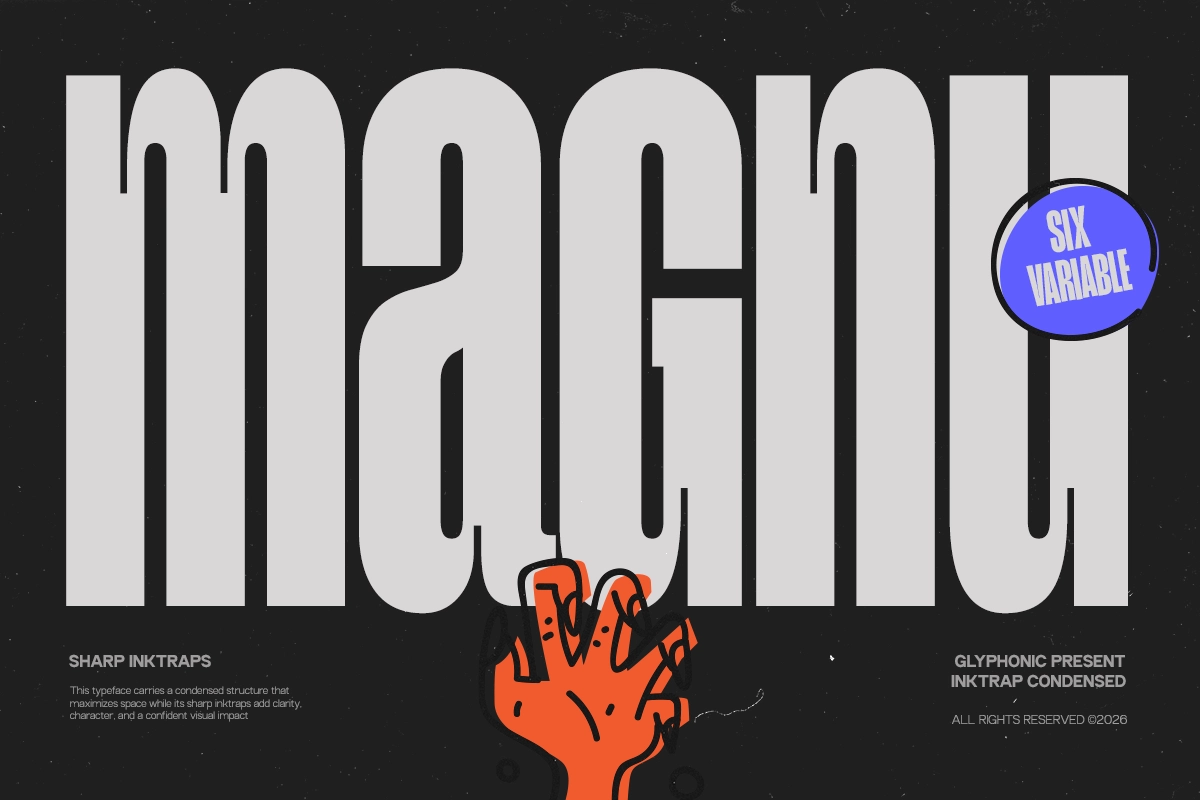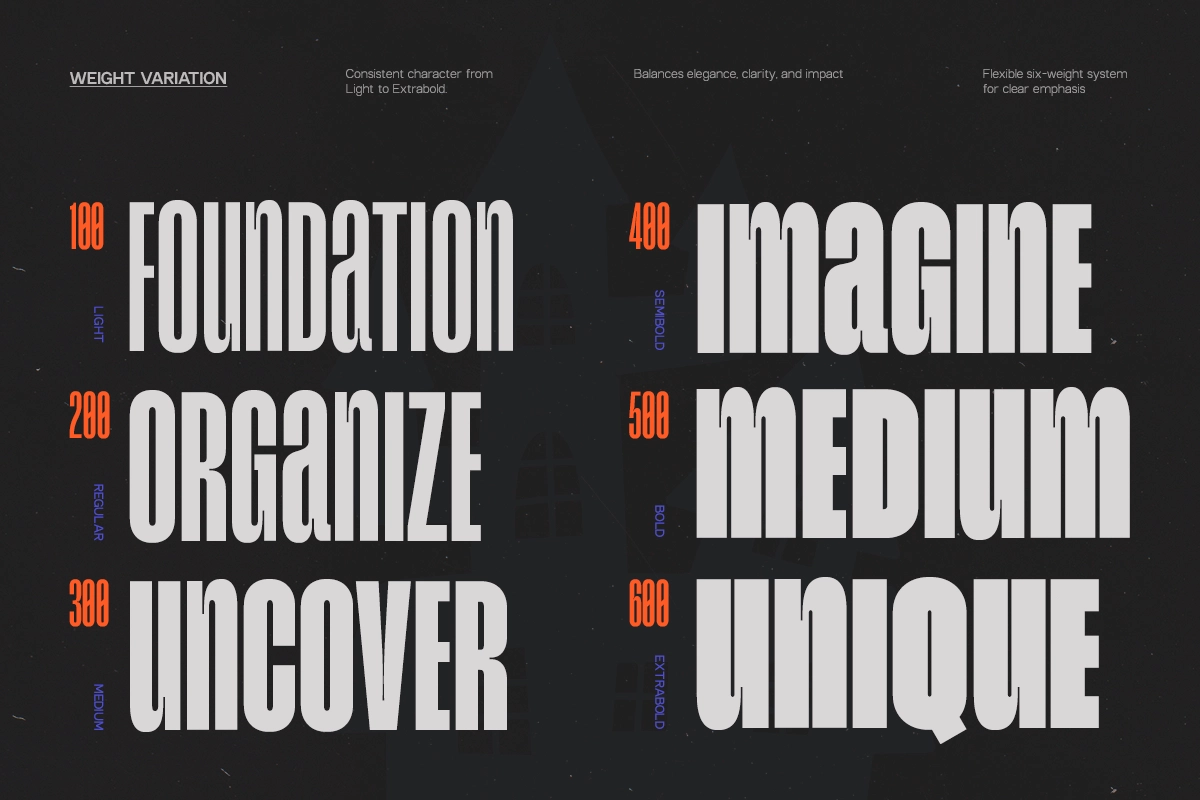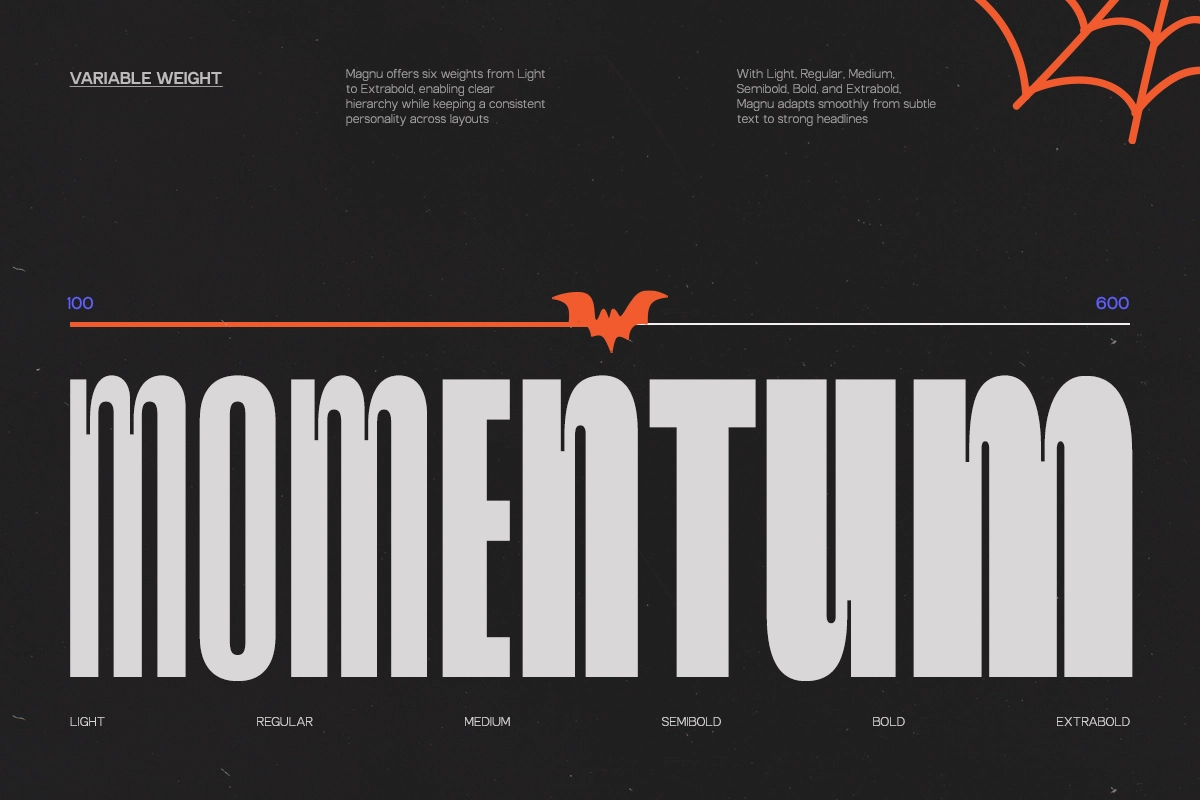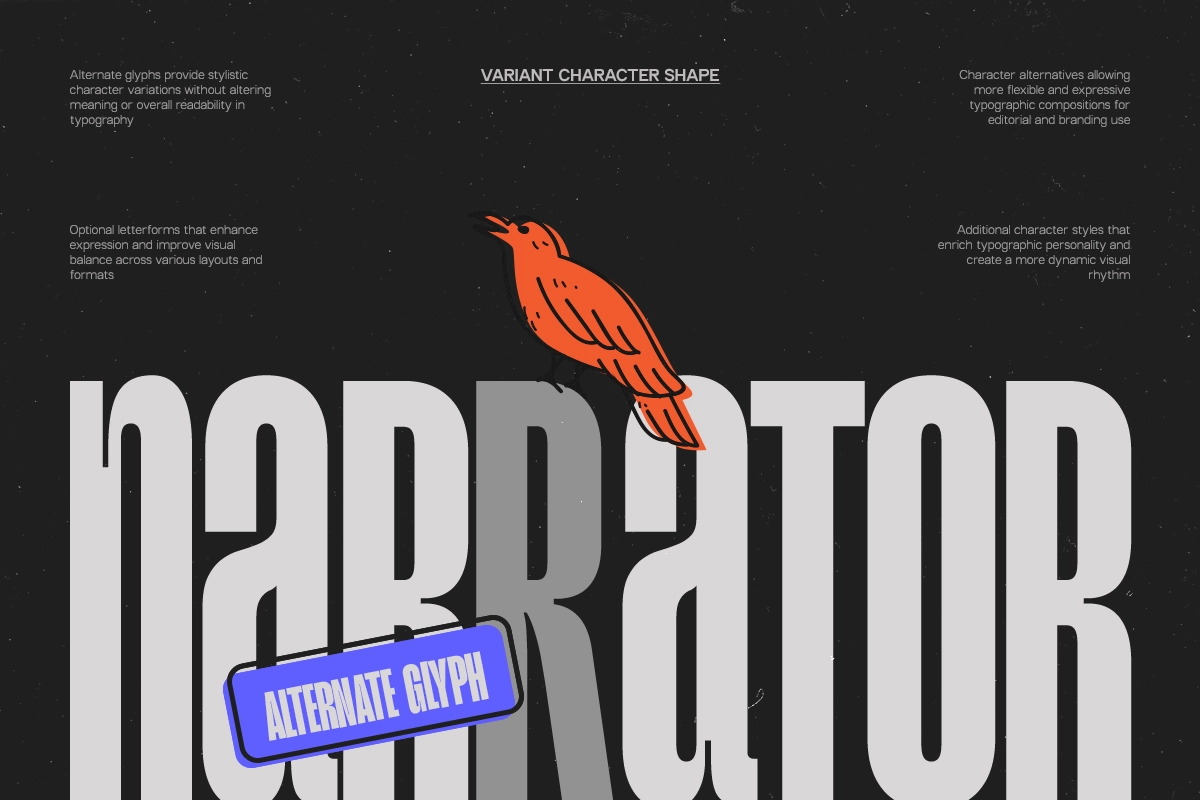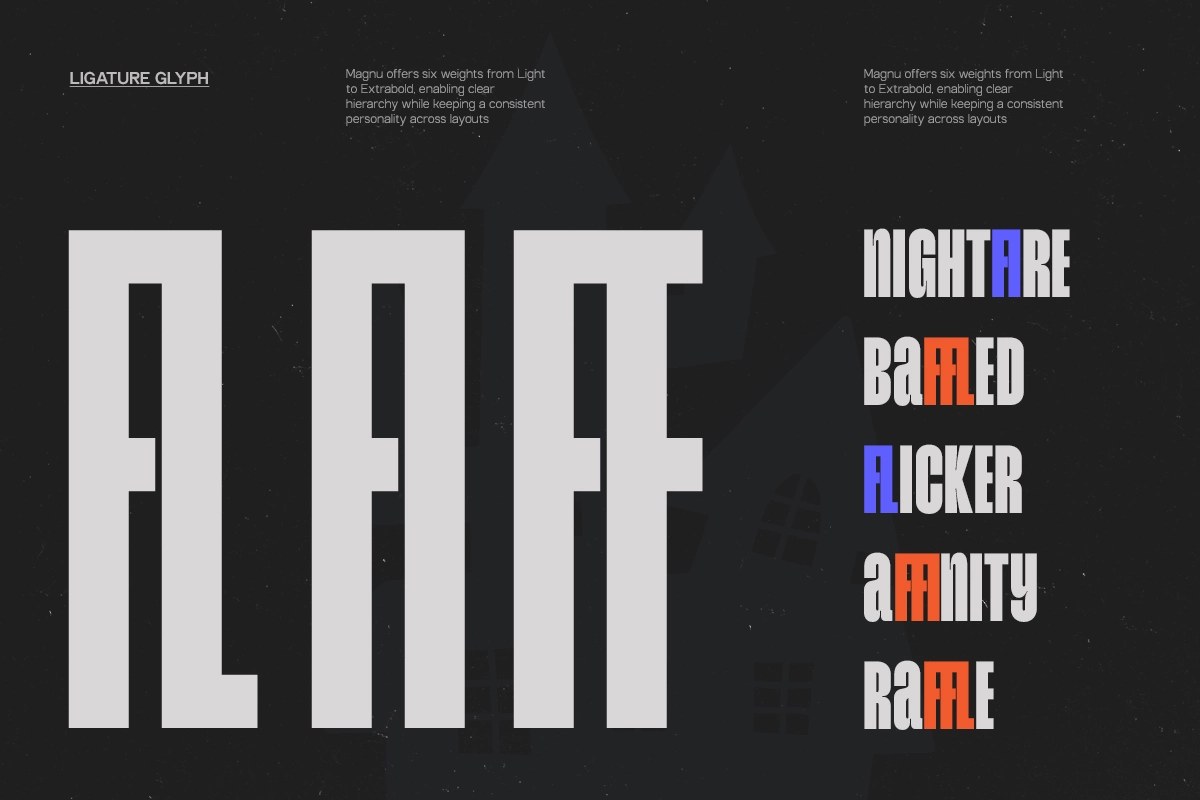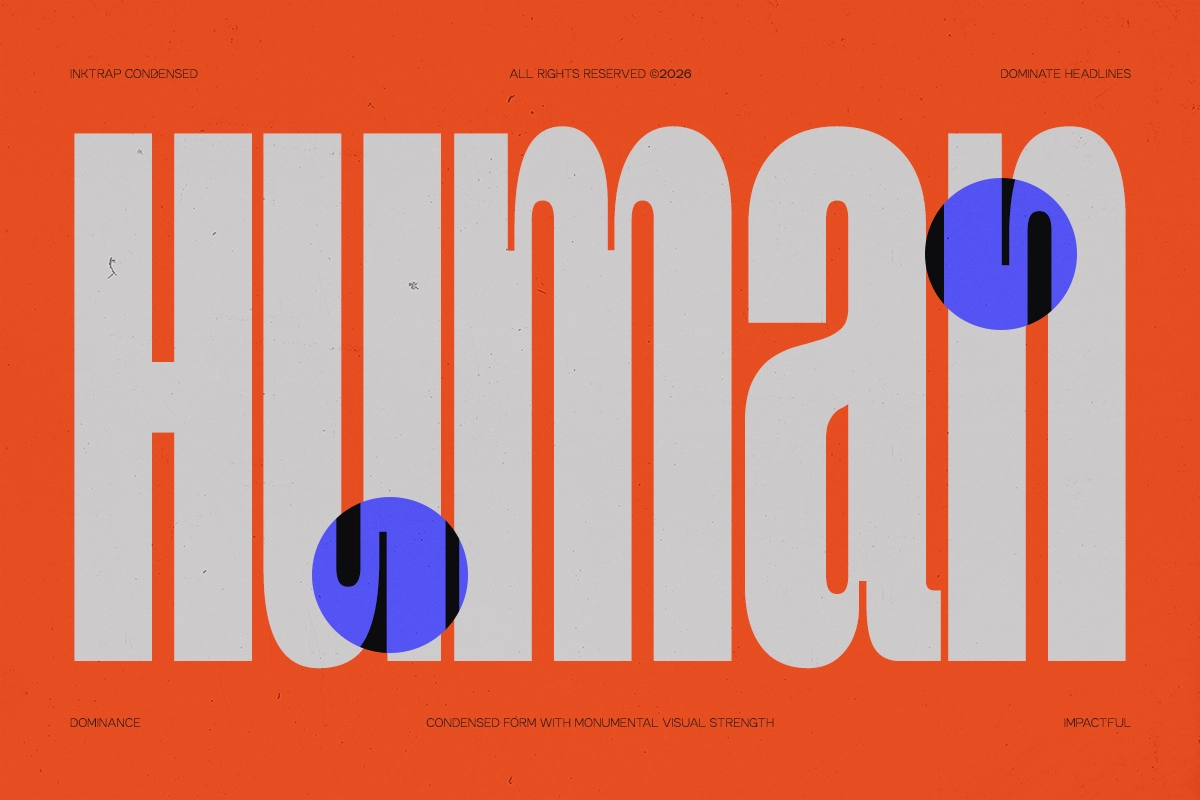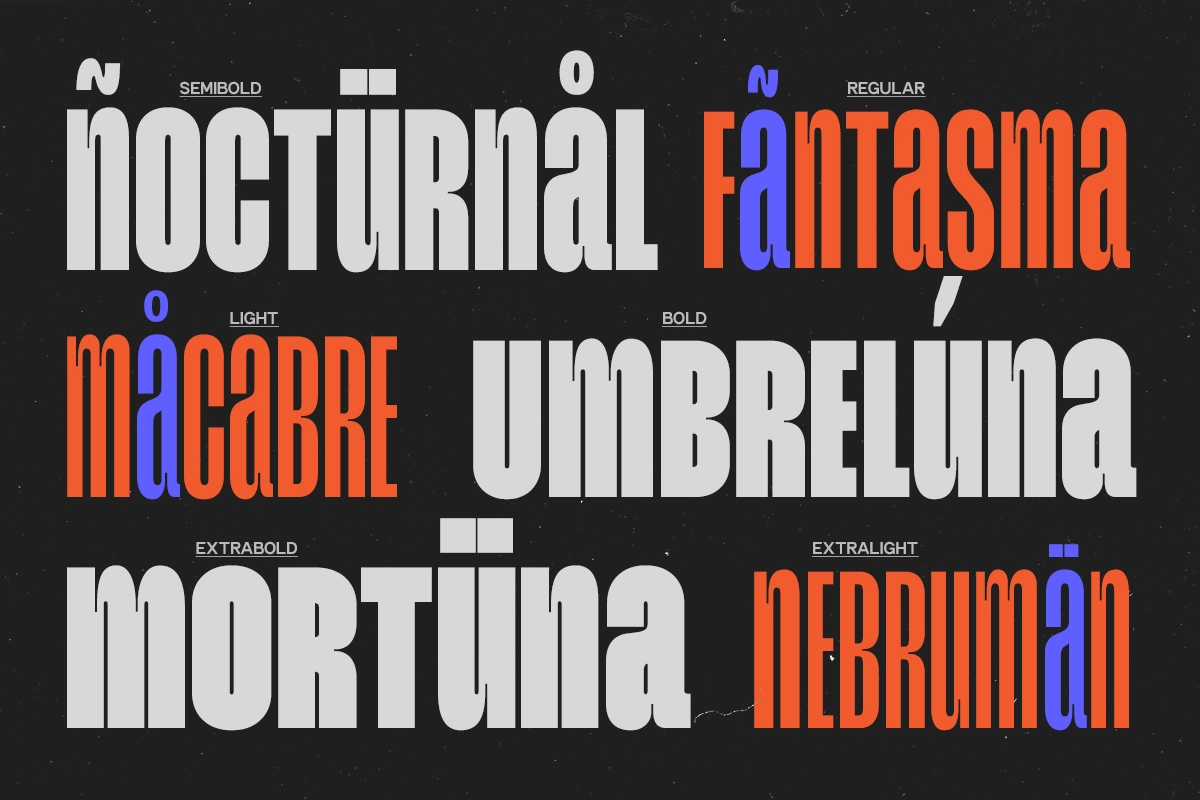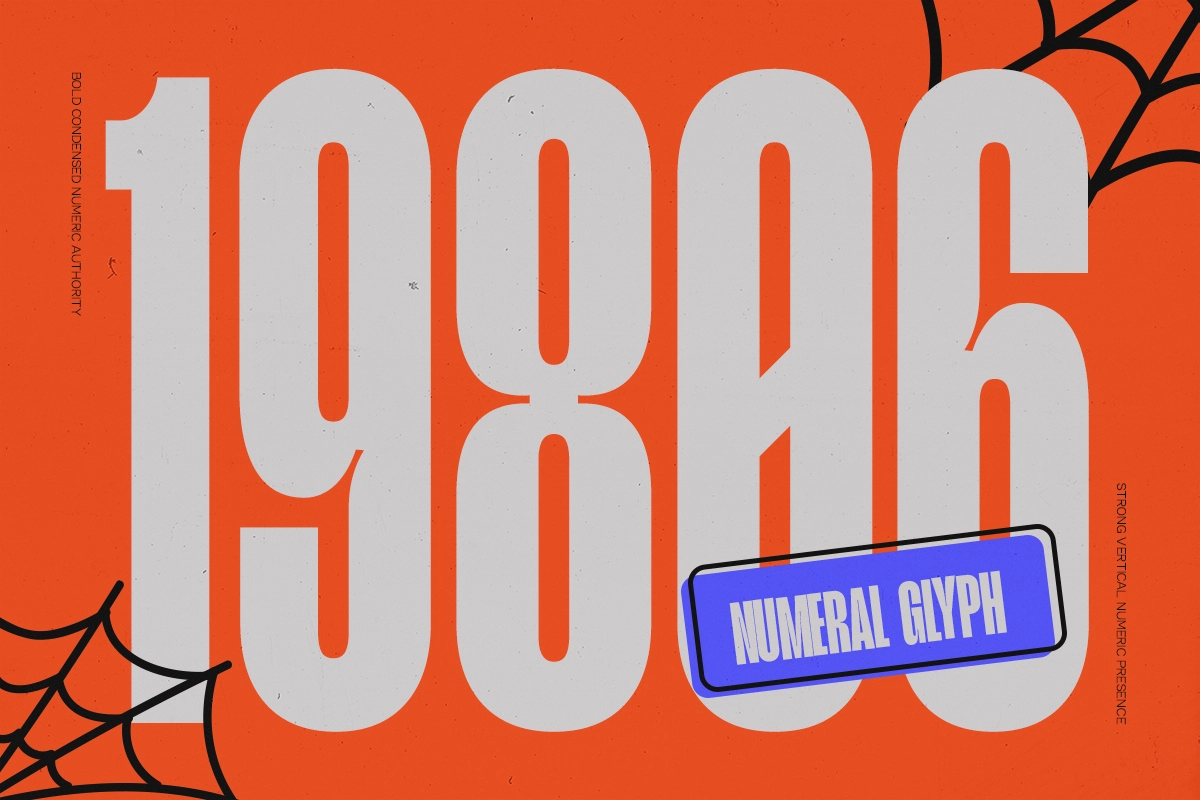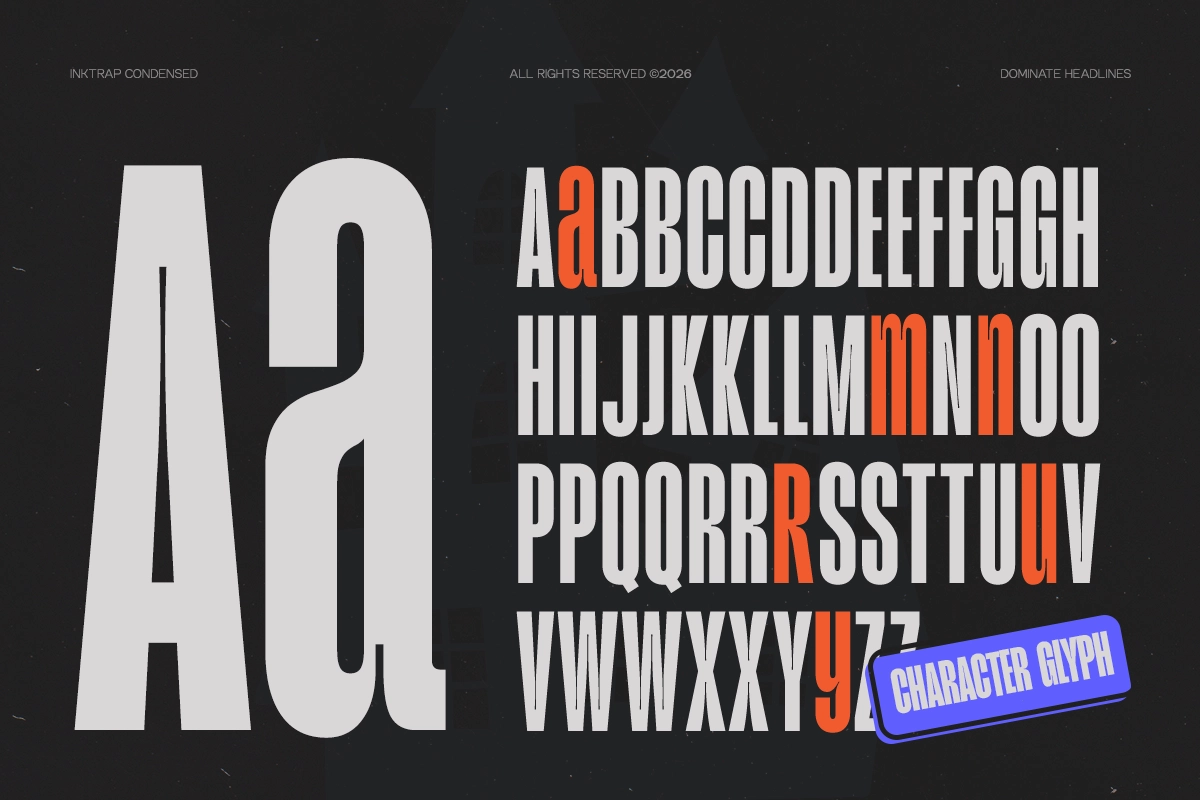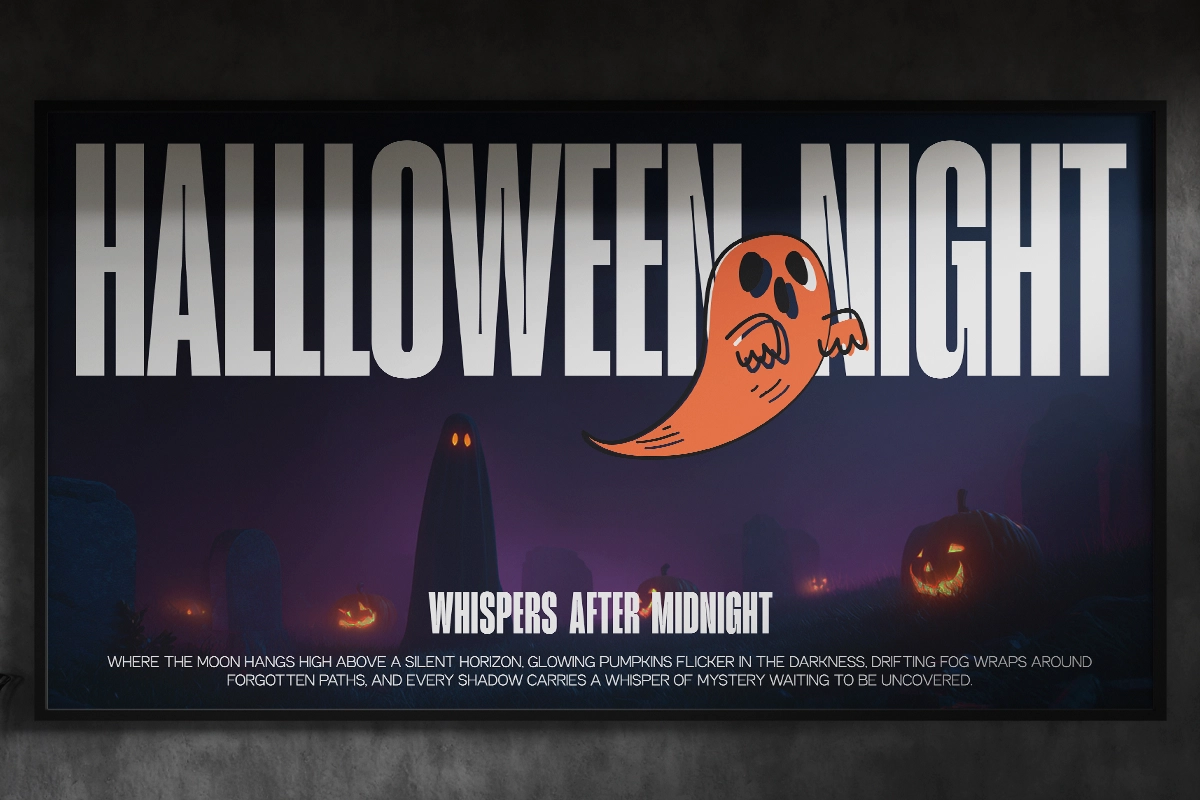
GC Magnu - Inktrap Condensed Display Font
GC Magnu - Inktrap Condensed Display Font is a modern sans serif typeface crafted with precision, efficiency, and bold visual impact. Featuring sharp inktrap details and a space-saving condensed structure, it is designed to deliver maximum readability while maintaining a strong contemporary aesthetic.
Engineered for high-performance typography, GC Magnu excels in tight layouts where clarity is essential. Its refined geometry and functional inktraps improve legibility across various sizes, making it ideal for branding, editorial design, user interfaces, packaging, and data-driven visuals.
Balancing technical precision with modern style, GC Magnu provides a clean, structured, and confident typographic voice that performs seamlessly in both digital and print environments.
• Numbers & Punctuation
• Inktrap Condensed Construction
• Multilingual Support (170+ Languages)